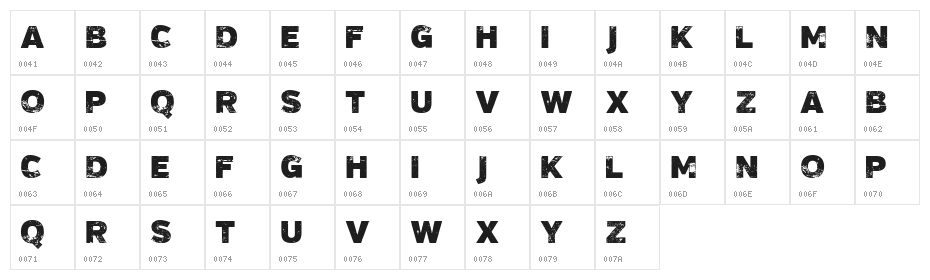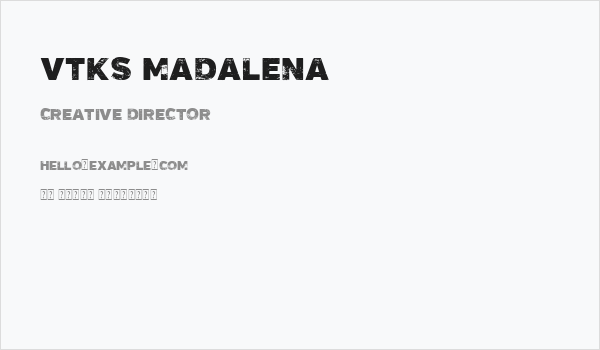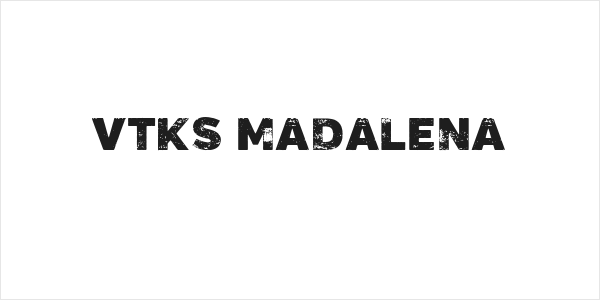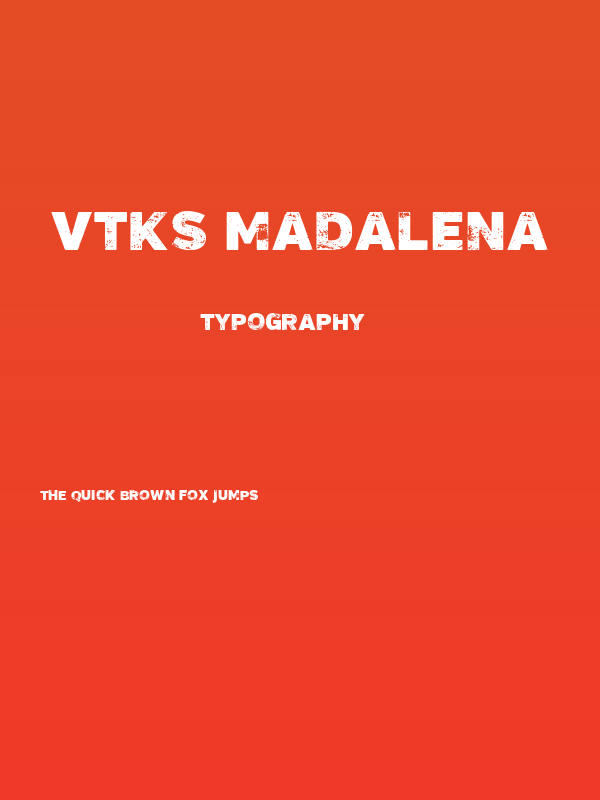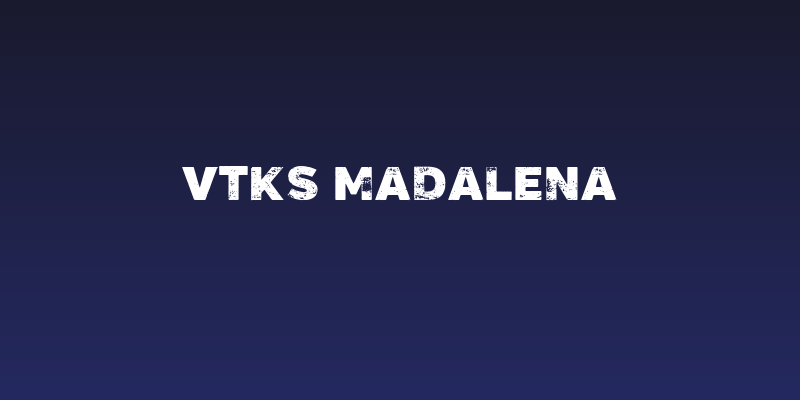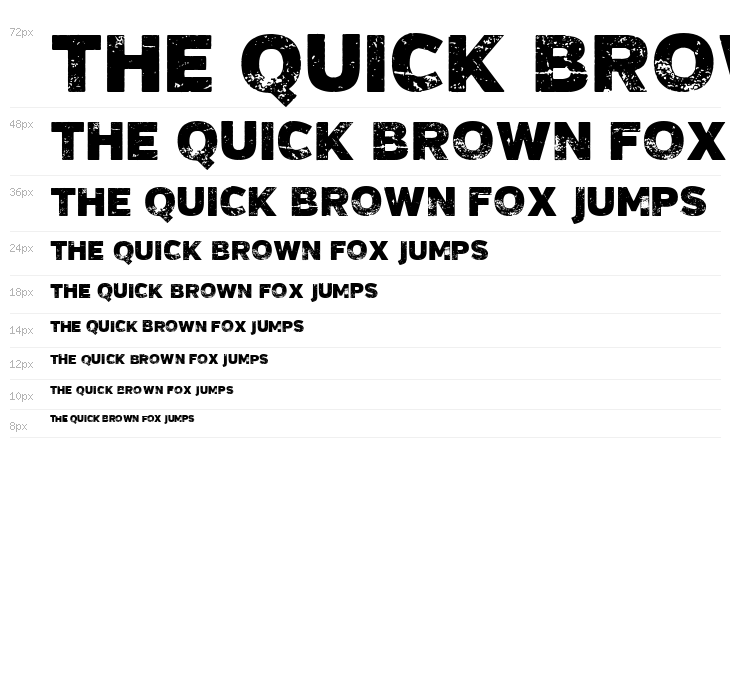
Vtks Madalena Font
Vtks Madalena Description
This font features a bold, distressed style with a textured appearance that gives it a rugged and vintage feel. The uppercase letters are prominent and display a unique, worn-out effect that adds character and depth. The design is consistent across all characters, maintaining a strong and impactful presence. The texture varies slightly between letters, enhancing the organic and handcrafted look. This font is ideal for projects that require a bold statement with a touch of nostalgia or a grunge aesthetic.
| Proposed Projects | Ideal for posters, album covers, branding, and any design needing a bold, vintage touch. |